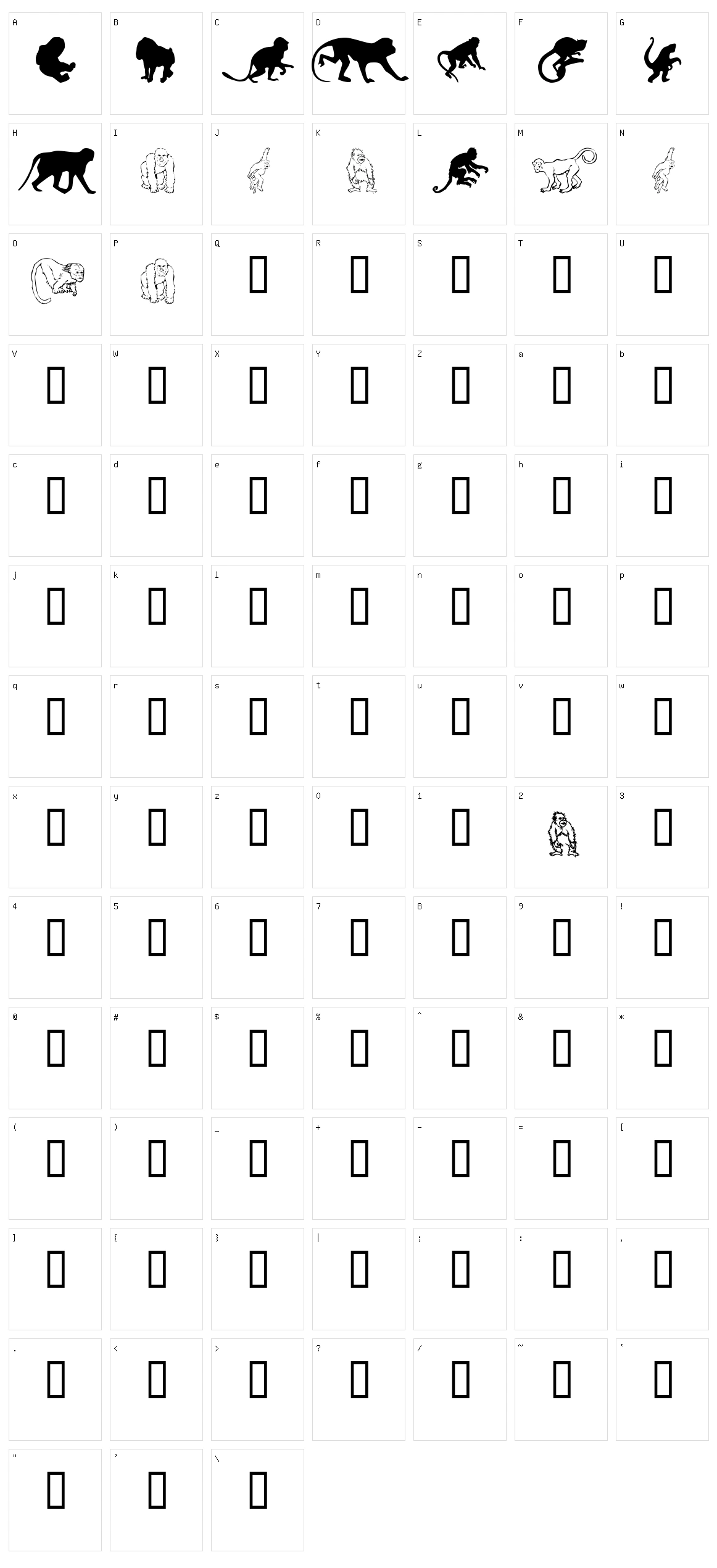
duplicates and in the #1 is another one. That was meant to be
placed in the letter A and was then placed there. Monkeys are very
hard to use as medium for a font as most images available of them
are in color and very little drawn images exist. The fur also
causes problems when being used as a font. Therefore, these images
which used to be an original graphic or drawn image, were changed
to black and white images.